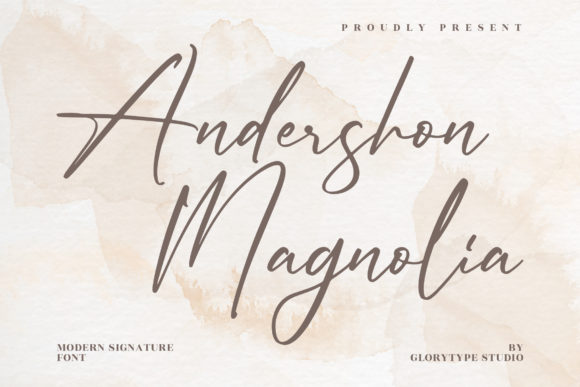
Welcome to the world of Andershon Magnolia, an enchanting script font that will cast a spell on your designs. Crafted with the utmost care by Glorytype Studio, this font exudes elegance and sophistication, inviting you to create captivating visual masterpieces.
Unlike conventional fonts, Andershon Magnolia is a symphony of flowing strokes and graceful curves, evoking the beauty of handwritten calligraphy. Its timeless charm effortlessly blends with a modern touch, ensuring your creations stand out from the crowd.
Visualize your posters adorned with the captivating allure of Andershon Magnolia, drawing attention like a magnet. The font's inherent grace will effortlessly elevate your designs, transforming them into works of art that will captivate and inspire.
Whether you're crafting posters for special events, showcasing your products, or simply expressing your creativity, Andershon Magnolia is your perfect companion. Its innate versatility knows no bounds, allowing you to unleash your imagination and weave enchanting tales through your designs.
Prepare to be mesmerized by the allure of Andershon Magnolia, the font that will add a touch of magic to your creations. Its timeless elegance and modern appeal make it the perfect choice for designers seeking to captivate and inspire. Embrace the beauty of handcrafted typography and elevate your designs to new heights with Andershon Magnolia!